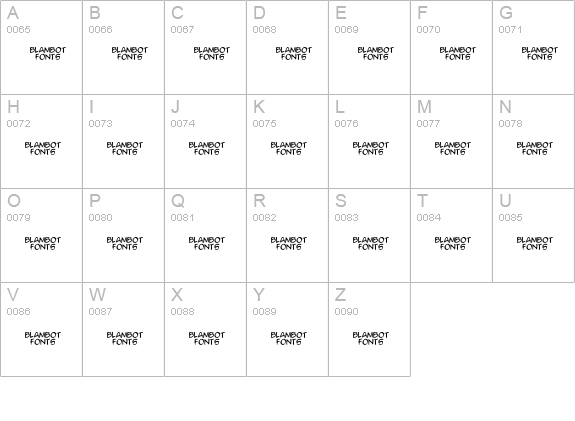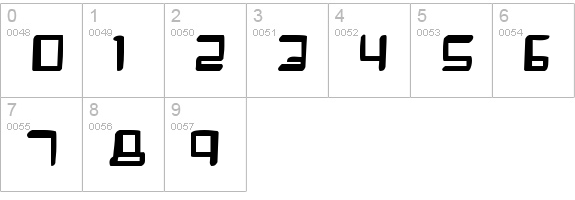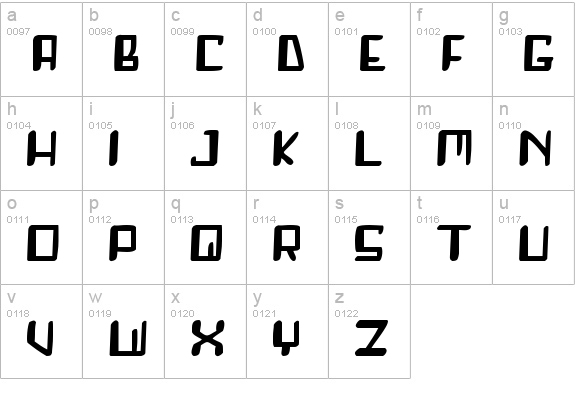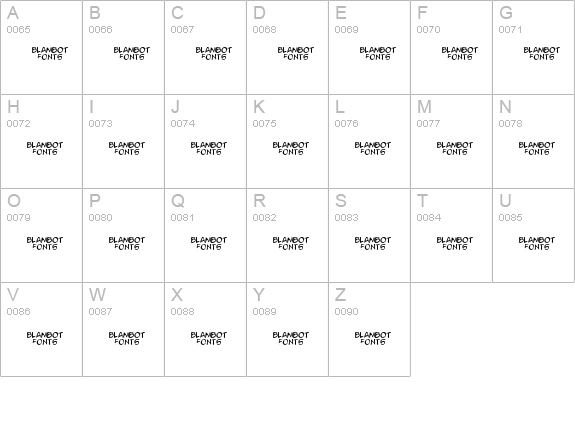
Roboshemp Font Details
Roboshemp font is a modern and versatile typeface that combines futuristic elements with a touch of retro charm. Its sleek and stylish design makes it perfect for a wide range of creative projects, from branding to editorial design. The font features clean lines, rounded edges, and a futuristic aesthetic that sets it apart from traditional typefaces. What sets Roboshemp font apart is that it is not only visually striking, but also free to download. You can easily access this unique font at FontsMarket.com, where you can unleash your creativity without any cost barriers. Whether you're designing a website, creating marketing materials, or crafting a logo, Roboshemp font is sure to make a bold statement and leave a lasting impression. Download this cutting-edge font today and elevate your designs to new heights.